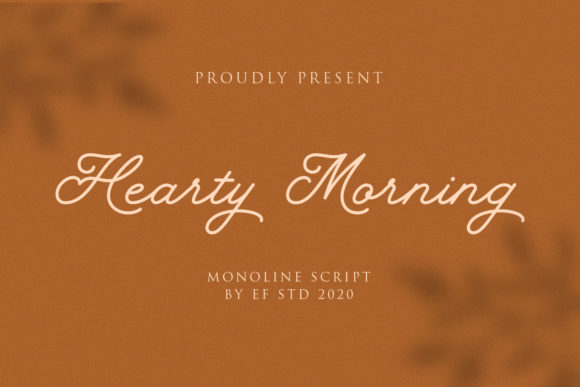
Hearty Morning: A Handwritten Font with a Classic Touch
Typography plays a crucial role in design, shaping how information is perceived and experienced. Hearty Morning is a font that stands out for its unique blend of classic typography and modern handwritten style. Whether you're designing a website, creating print materials, or working on digital media, this font offers versatility and character that can elevate your projects.
The Inspiration Behind Hearty Morning
Hearty Morning draws inspiration from traditional typographic styles while introducing a fresh, handwritten feel. This combination makes it an excellent choice for designers looking to add personality without sacrificing readability. The font's design reflects the warmth and energy of a new day, making it particularly suitable for projects with a friendly or motivational tone.
Key Features of Hearty Morning
- Versatile Usage: Designed for headlines and body text, Hearty Morning works well across different sizes and formats.
- Handwritten Style: The font mimics natural handwriting, adding a personal touch to any design.
- Classic Influence: Inspired by traditional typography, it maintains a timeless appeal.
- Adaptable for Various Media: From web to print, Hearty Morning looks great in multiple contexts.
Where Can Hearty Morning Be Used?
Hearty Morning is ideal for a wide range of applications. Its distinct style makes it particularly effective in the following scenarios:
- Headlines and Titles: The fontβs bold and expressive nature makes it perfect for grabbing attention in headlines.
- Blog Posts and Articles: When used for body text, it adds a warm and inviting feel to written content.
- Marketing Materials: Brochures, flyers, and posters benefit from the font's ability to convey both professionalism and approachability.
- Web Design: It enhances the visual appeal of websites, especially when used in call-to-action buttons or section headers.
- Personal Projects: Artists and creators can use Hearty Morning to give their work a more personal and creative edge.
Who Can Benefit from Using Hearty Morning?
Hearty Morning is a valuable tool for various professionals and individuals, including:
- Graphic Designers: Looking for a font that adds character to their designs without compromising legibility.
- Web Developers: Wanting to enhance the visual hierarchy of their websites.
- Content Creators: Seeking a font that complements their writing style and engages readers.
- Business Owners: Creating branding materials that stand out and resonate with customers.
- Students and Educators: Producing educational content that is both informative and visually appealing.
Strengths and Considerations
While Hearty Morning has many strengths, it's important to consider its limitations to ensure it's the right fit for your project.
Strengths:
- Expressive Style: The font's handwritten appearance adds a sense of authenticity and creativity.
- Readability: Despite its casual look, Hearty Morning remains highly legible, even in larger blocks of text.
- Flexibility: Suitable for both digital and print media, offering a consistent aesthetic across platforms.
Considerations:
- Not Ideal for Long Text: While it works well for short paragraphs, extended use may reduce readability due to its informal style.
- Limited Character Set: Some special characters or symbols may not be available, depending on the font version.
- Design Consistency: Ensure that the font aligns with the overall design theme of your project to avoid clashing styles.
Real-World Applications of Hearty Morning
Here are some practical examples of how Hearty Morning can be applied in real-world scenarios:
Example 1: Website Header
A fitness blog could use Hearty Morning as the main heading to create a welcoming and energetic vibe. The font's bold style would help emphasize key messages and encourage reader engagement.
Example 2: Social Media Posts
For businesses promoting their products on social media, Hearty Morning can be used in captions or promotional graphics. Its friendly and approachable look helps build a connection with the audience.
Example 3: Print Advertising
In print ads, the font can be used for headlines or taglines. Its classic influence gives the advertisement a professional yet personable feel, making it more relatable to potential customers.
Evaluating Suitability for Your Needs
Before deciding to use Hearty Morning, consider the following factors:
- Purpose of the Project: Is the font being used for a formal or casual context? Hearty Morning may not be appropriate for all professional settings.
- Audience: Think about who will be viewing the content. If the audience prefers a more traditional look, other fonts might be better suited.
- Design Theme: Ensure that the font complements the color scheme, layout, and other design elements of your project.
- Legibility Requirements: For long-form text, prioritize fonts that are easier to read over those with a more stylized appearance.
Hearty Morning is a versatile and expressive font that can bring a unique flair to any design project. By understanding its strengths and limitations, you can make an informed decision about whether it's the right choice for your needs. Whether you're a designer, creator, or business owner, this font offers a way to add personality and warmth to your work.